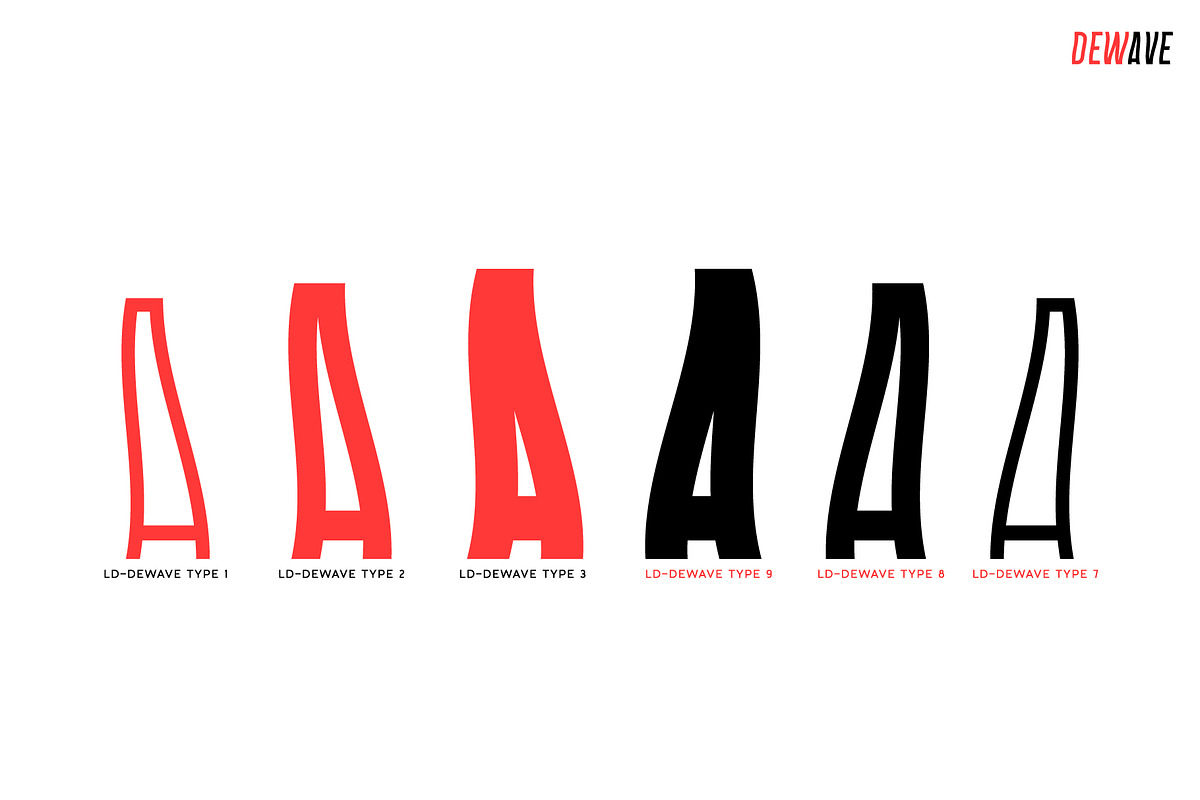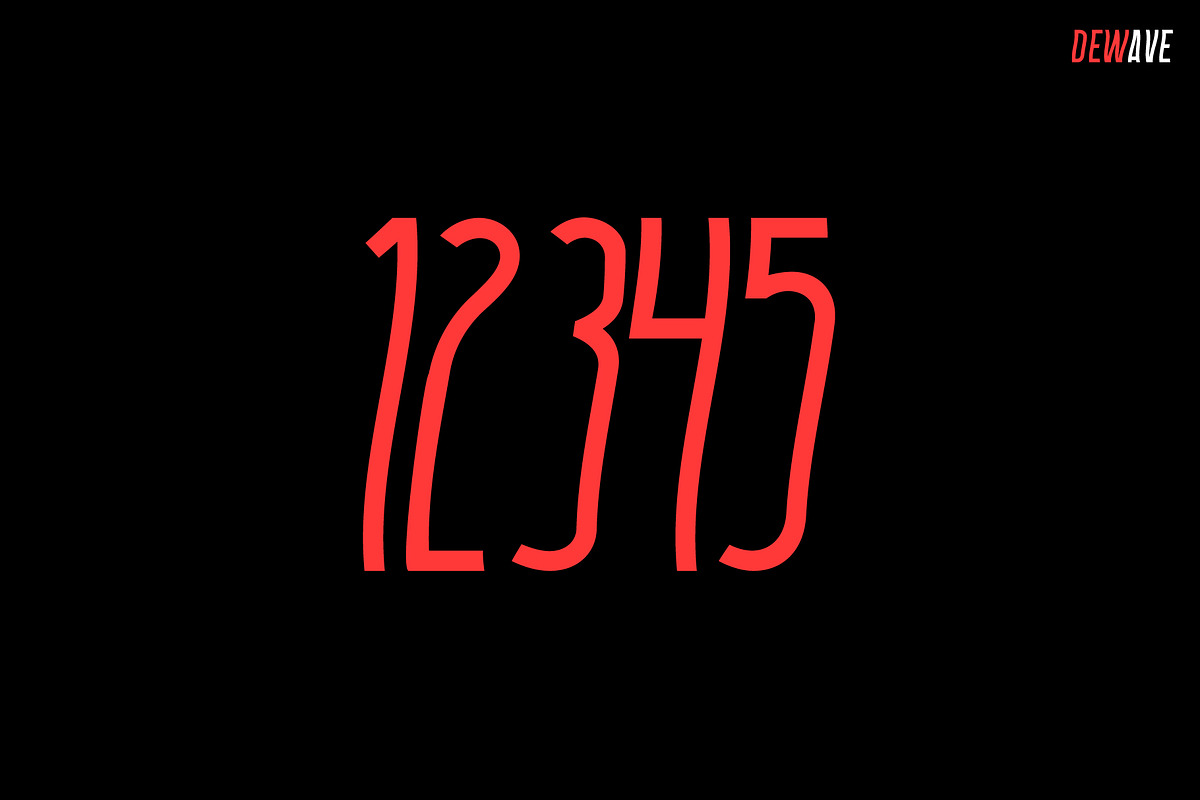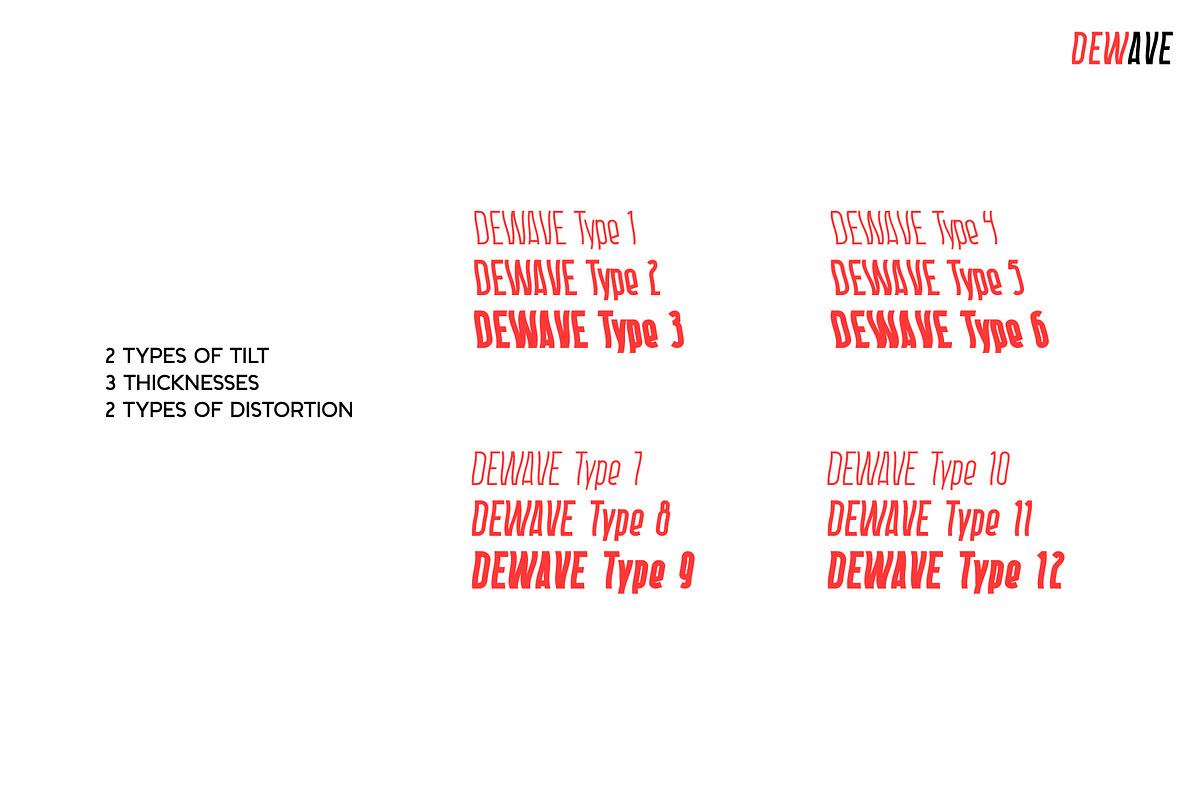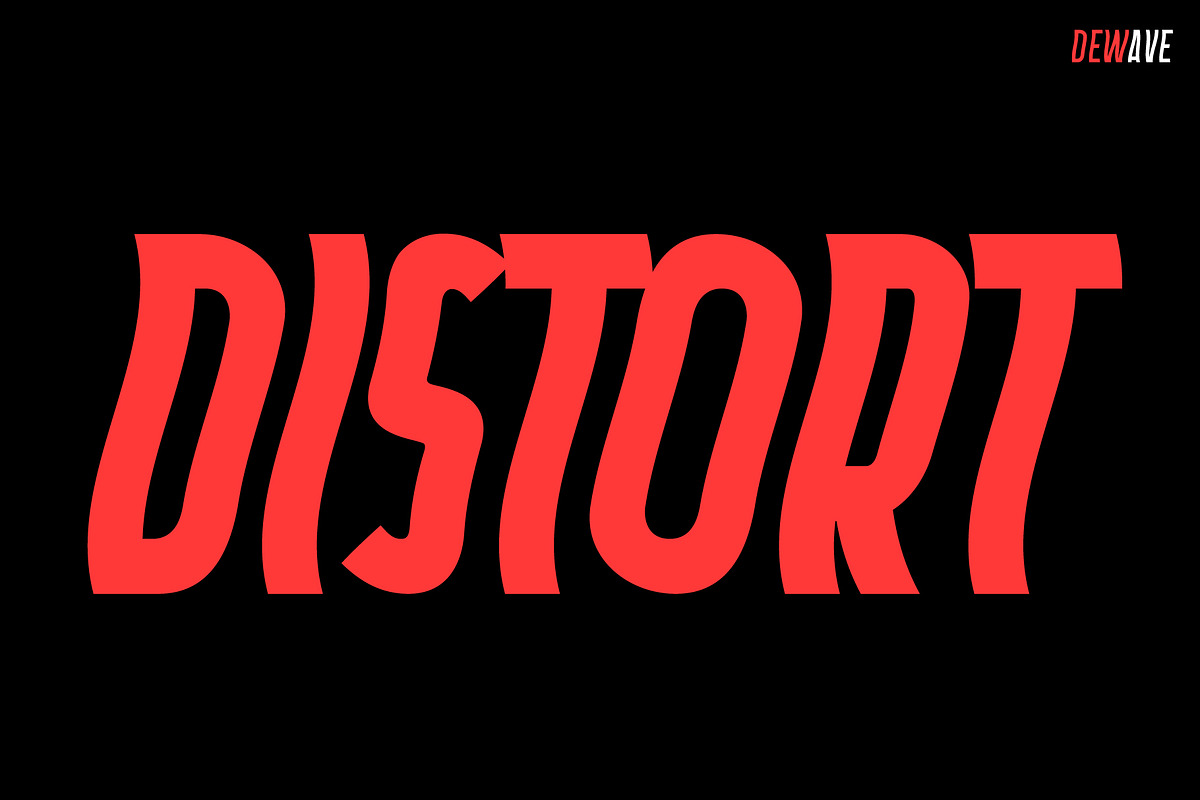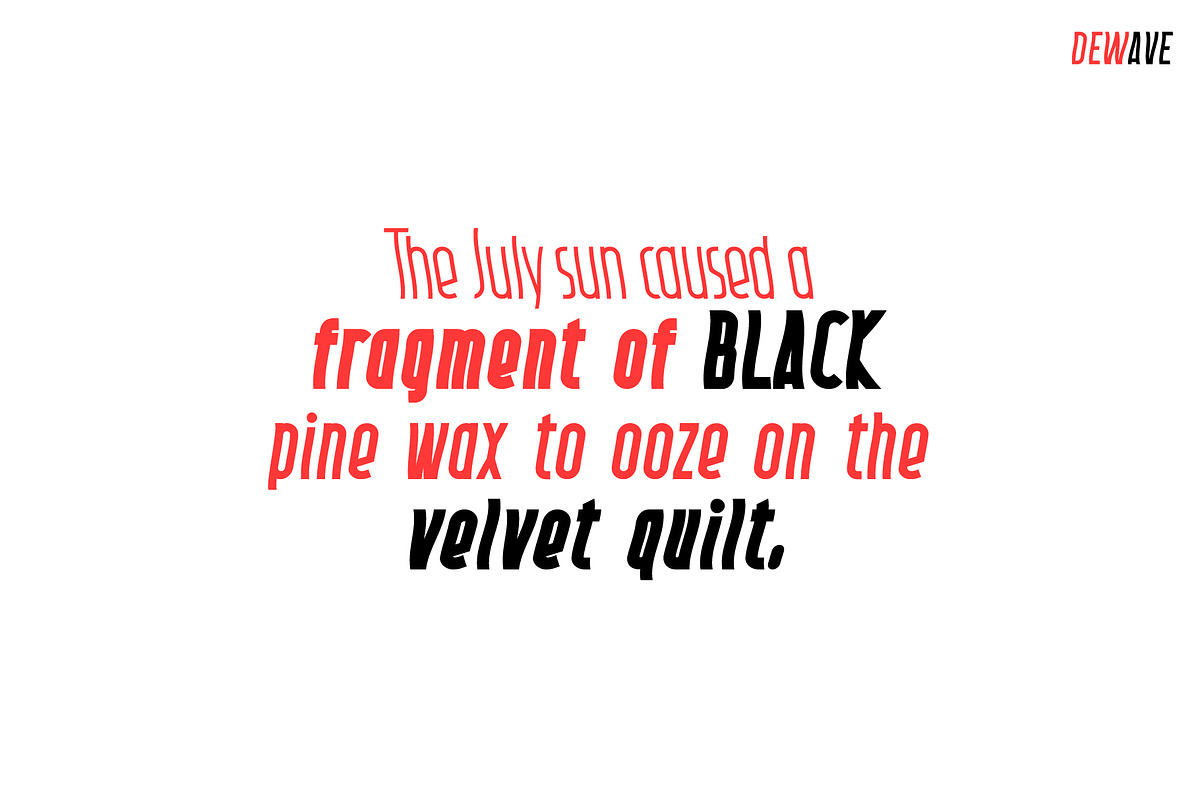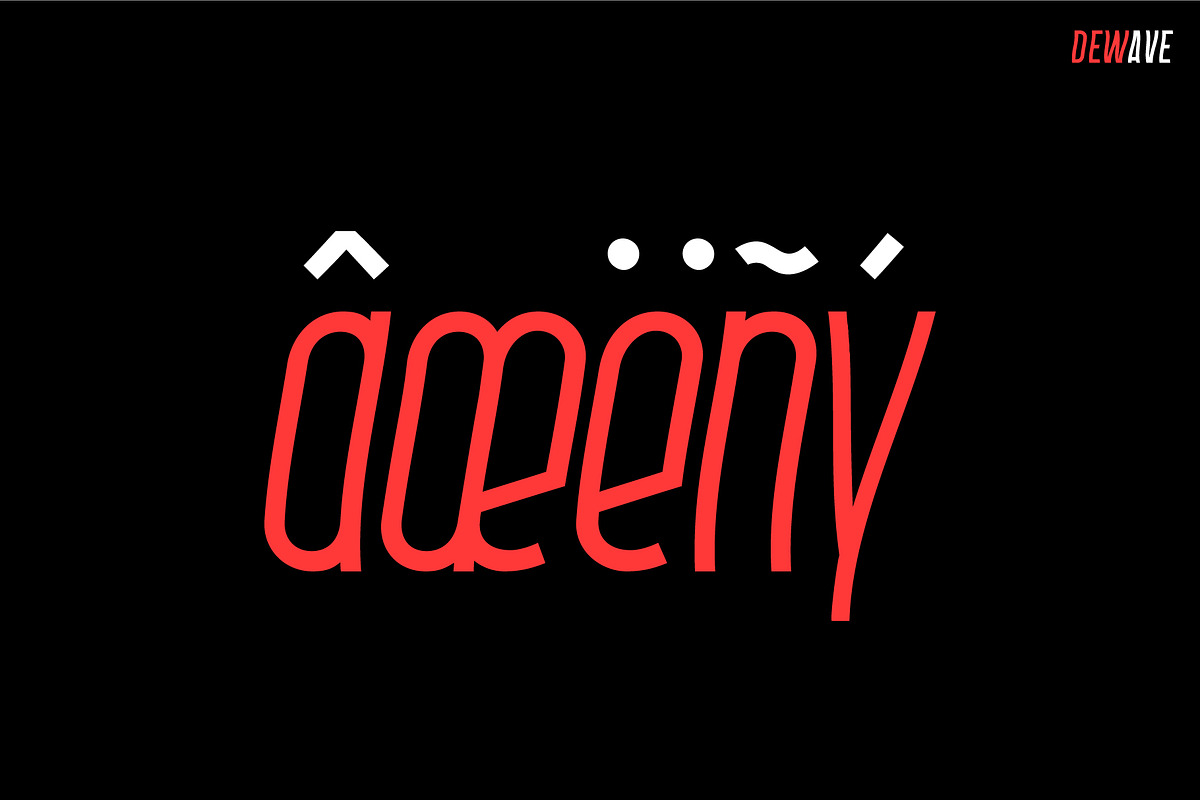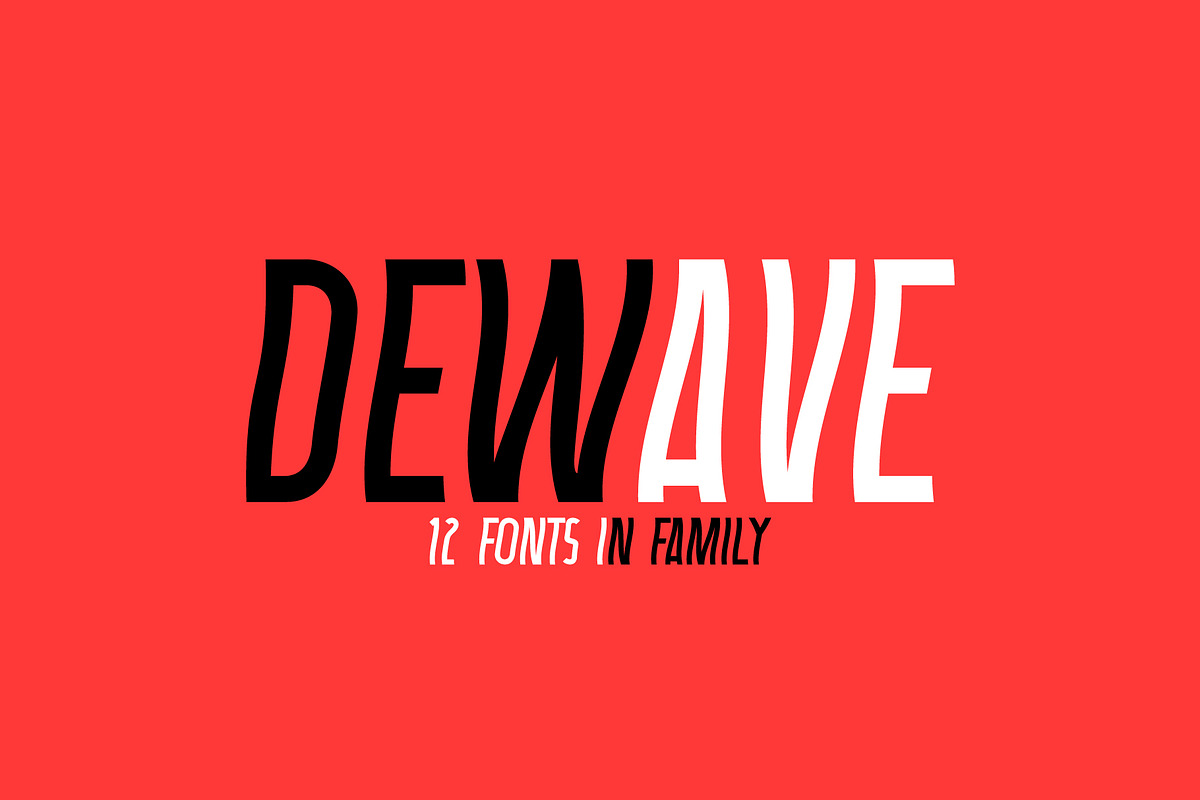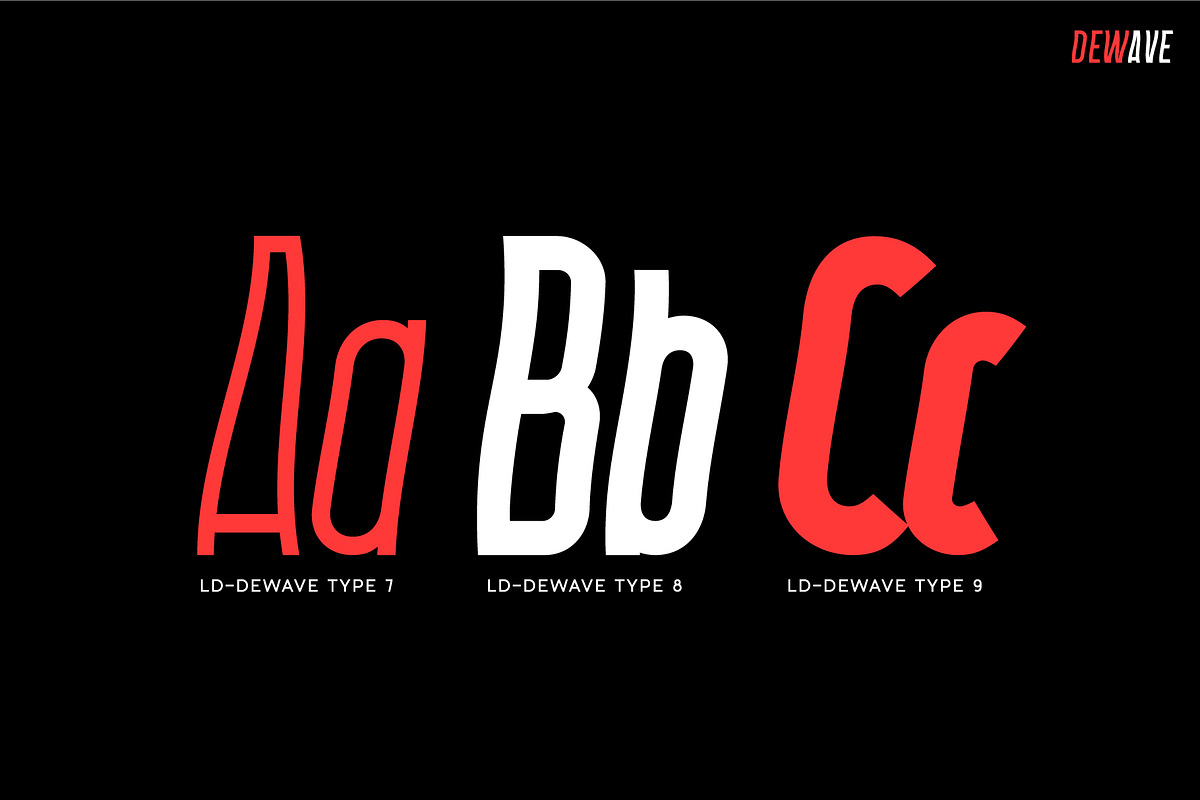
Dewave. Distorted Sans Serif family.
Introducing a distorted wavy Dewave Sans Serif font family. Interesting combination of elongation and distortion is embodied in the Dewave typeface. This font family is best suited for headlines and short text as an eye-catching accent. Due to its appearance, the font is well suited for the entertainment industry and everything connected with it both in offline life and in online projects. Dewave family has two types of tilt in different directions and 2 types of distortion - calm and strong, and all this is done in 3 types of thickness - this gives a lot of freedom of choice for the use of the font in the design.
- Distorted letters in waveform
- 12 fonts in family:
- 2 types of tilt
- 3 thicknesses
- 2 types of distortion
- Kerning